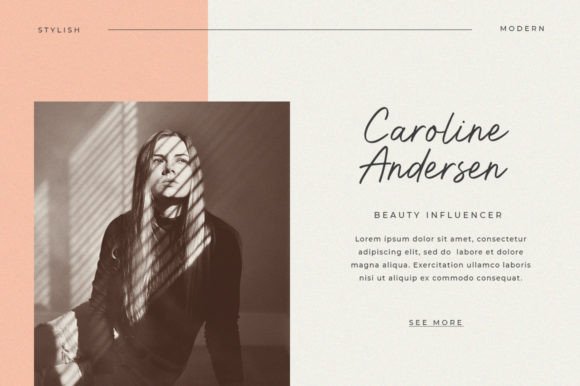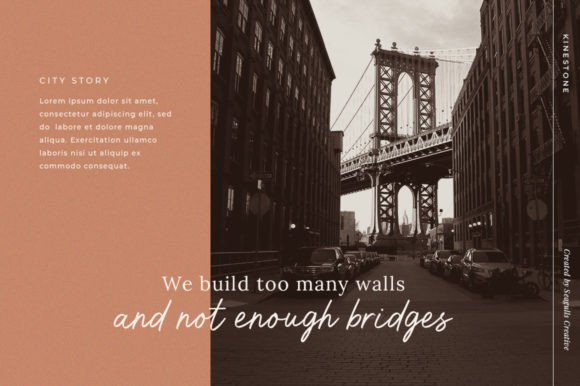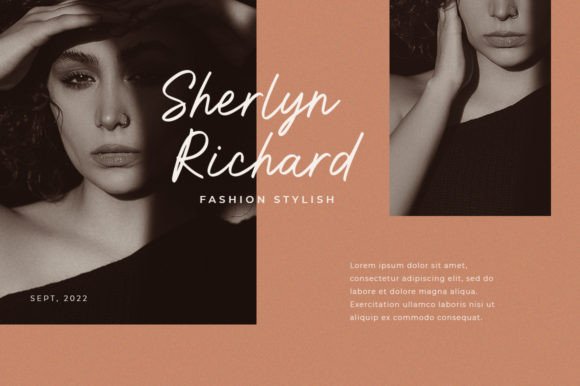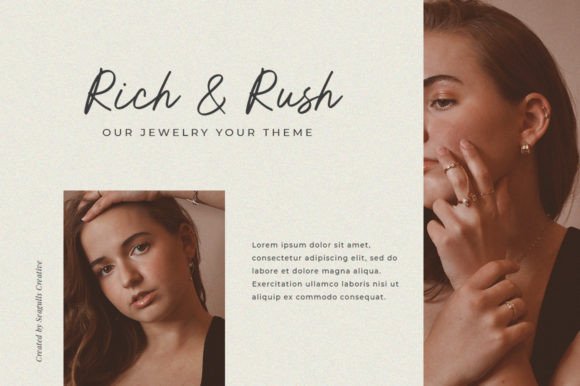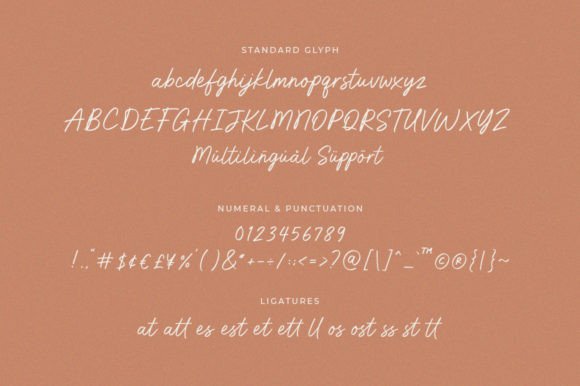
Kinestone Font
Kinestone is a modern and stylish handwritten font. This font is neatly crafted and very detailed. You can use it for various projects such as branding, labels, photography, invitations, stationery, wedding designs, social media posts, advertisements, product packaging, product designs, and more.